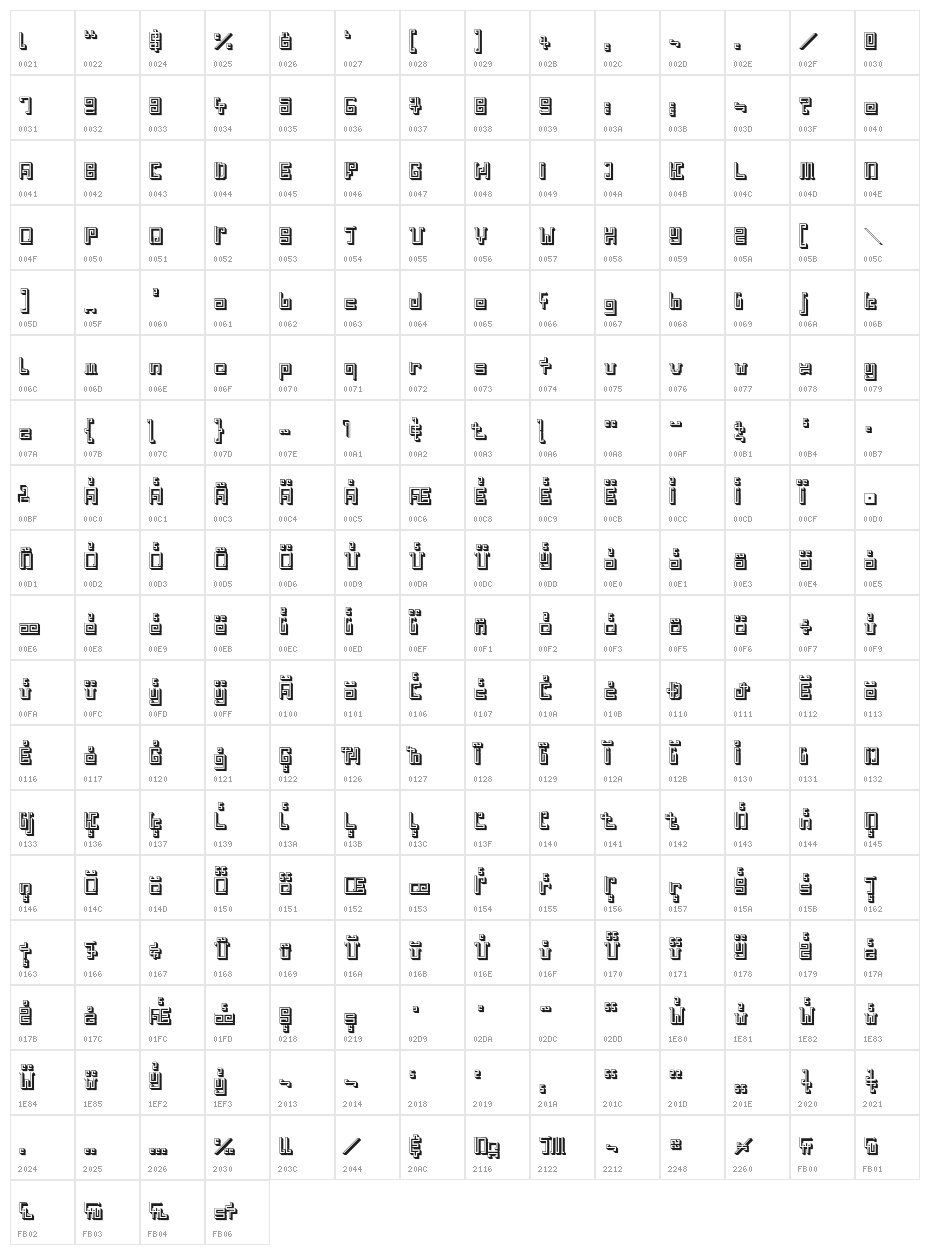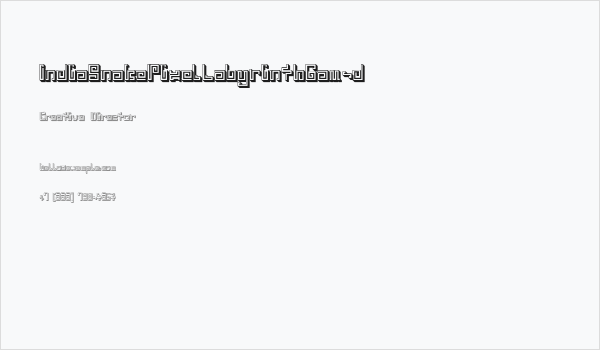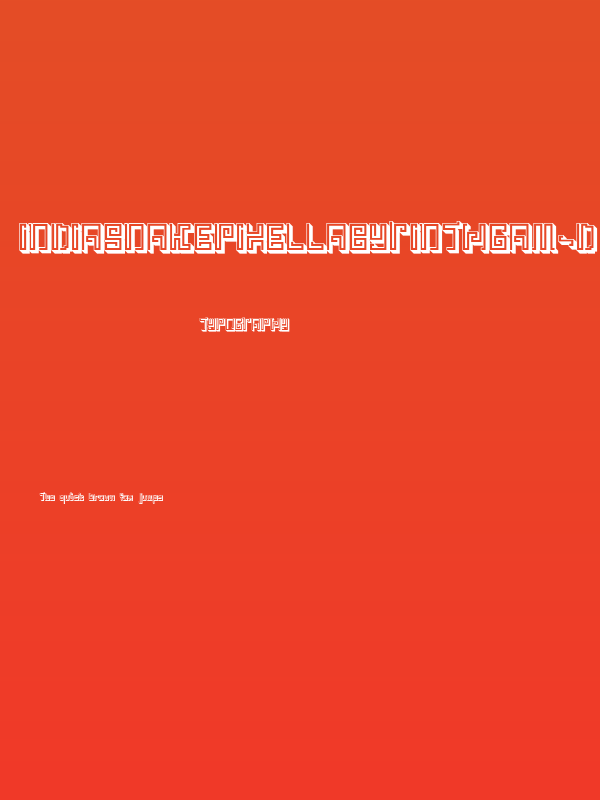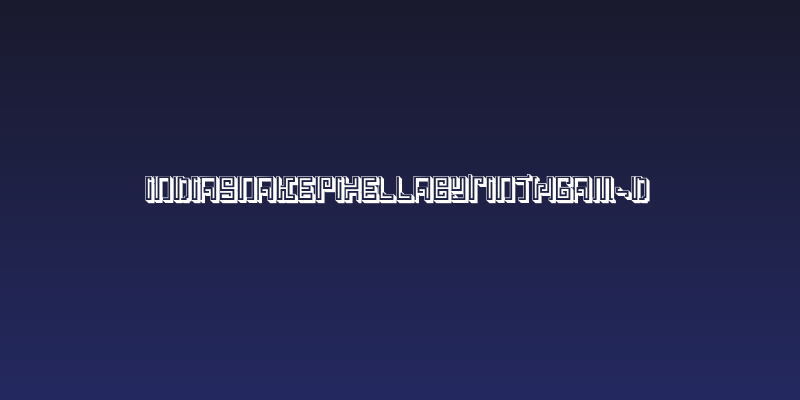
IndiaSnakePixelLabyrinthGam-d Font
IndiaSnakePixelLabyrinthGam-d Description
This font features a bold, geometric design with a three-dimensional effect, giving it a striking and modern appearance. The characters are constructed with thick lines and sharp angles, creating a labyrinth-like pattern that is both intricate and visually engaging. The shadow effect adds depth, enhancing the font's dynamic look. Each letter and number is distinct, with a consistent style that maintains readability despite its complex design. The special characters are equally stylized, fitting seamlessly with the overall aesthetic. This font is ideal for projects that require a bold statement and a contemporary edge.
| Proposed Projects | Ideal for video game titles, tech branding, posters, and modern art projects. |